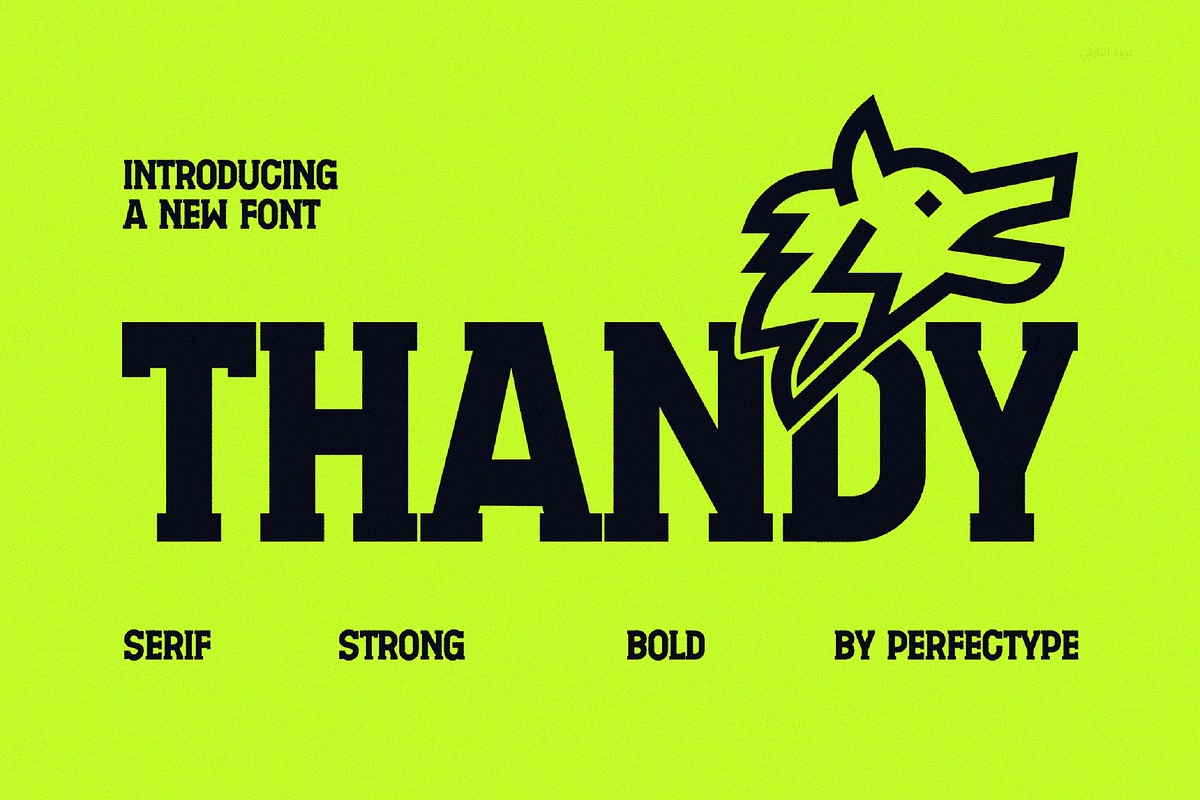
Thandy Font
Thandy Font is a versatile font designed to adapt beautifully across different design styles, offering dependable readability and balance. This typeface encapsulates a rhythm that is symmetrical and balanced due to a unique mix of different sources of inspiration. Proportions are precisely adjusted with subtle contours and subtle contrasts. These shapes give the font an attractive look without compromising on elegance and minimalism, ensuring that any glyph will work well in any graphic design purpose such as brochures, videos, advertising branding, logos, magazines, layout designs, posters, post templates, games and others
Designer: Perfectype